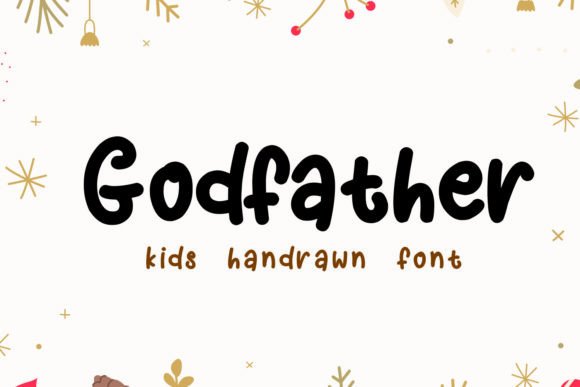
Godfather Font Download Free Font : If you’re looking for a font that blends charm, creativity, and personality, the Godfather font might just be your perfect pick. This handwritten typeface brings a whimsical, joyful touch to any design project. Whether you’re designing a children’s storybook or crafting a heartwarming greeting card, Godfather Font adds the exact flavor of fun and friendliness your work needs.
✨ What is the Godfather Font?
Don’t be fooled by the name — Godfather Font isn’t about mafia-themed lettering or serious cinematic vibes. Instead, it’s quite the opposite! This font is a quirky and free-spirited handwritten typeface, filled with joy, spontaneity, and artistic flair.
With its irregular baselines, uneven stroke widths, and organic curves, the Godfather font brings an authentic hand-drawn look. It’s not mechanical or stiff — it’s lively and full of personality. Each letter feels as if it was doodled lovingly in a sketchbook, making it perfect for friendly, fun, and family-oriented designs.
🖋️ Key Features of Godfather Font
Handwritten Style: Carefully crafted to look like it was written by hand with a marker or felt pen.
Irregular Baseline: Gives the font a bouncing, cheerful movement.
Playful Shapes: Every letter has a unique, imaginative twist.
Casual Readability: Despite its playful form, it remains highly legible.
Perfect for Print and Digital: Works well in both high-resolution print materials and screen-based applications.
🎨 Where to Use the Godfather Font?
The Godfather Font is incredibly versatile in fun and light-hearted design spaces. It’s not a font for corporate reports or legal documents — it shines best in creative and expressive contexts like:
1. Children’s Books
The font’s childlike wonder makes it ideal for storytelling. Whether it’s a fairytale, alphabet learning guide, or comic, the Godfather font brings life and personality to young readers’ pages.
2. Greeting Cards
Birthday cards, thank-you notes, or even festive invitations benefit from this font’s joyful style. It adds warmth and sincerity that printed block fonts can’t match.
3. T-Shirt & Merch Designs
For brands that lean into handmade, indie, or cottagecore aesthetics, Godfather can give a down-to-earth and personal touch to merchandise.
4. Social Media Graphics
Using a playful font like this can help you stand out on social platforms like Instagram, Pinterest, and Facebook. Use it for quote posts, DIY tutorials, or digital scrapbooks.
5. Event Invitations
Baby showers, kids’ birthday parties, picnics, and family reunions — all these events call for a font that’s approachable and fun, like Godfather.
🔠 Godfather Font Pairing Tips
While the Godfather font can carry a design on its own, pairing it wisely with a clean and minimal font can elevate your project even further. Here are some pairing suggestions:
With Montserrat or Lato: Clean sans-serifs help balance the whimsy of Godfather.
With Playfair Display: Adds a touch of elegance for contrast.
With Comic Neue: Keeps the fun vibe going with better structure.
Q3: What makes the Godfather font different from other handwritten fonts?
A: Its quirky and bouncy baseline, coupled with irregular letter shapes, gives it a more spontaneous and youthful appearance compared to more polished handwritten fonts.
🧡 Final Thoughts
If you’re searching for a light-hearted, handwritten font full of character, the Godfather font is an excellent choice. Its unrefined, natural vibe brings creativity and charm to every design it touches. Best of all, it’s free to download and easy to use — making it a must-have in your font collection.